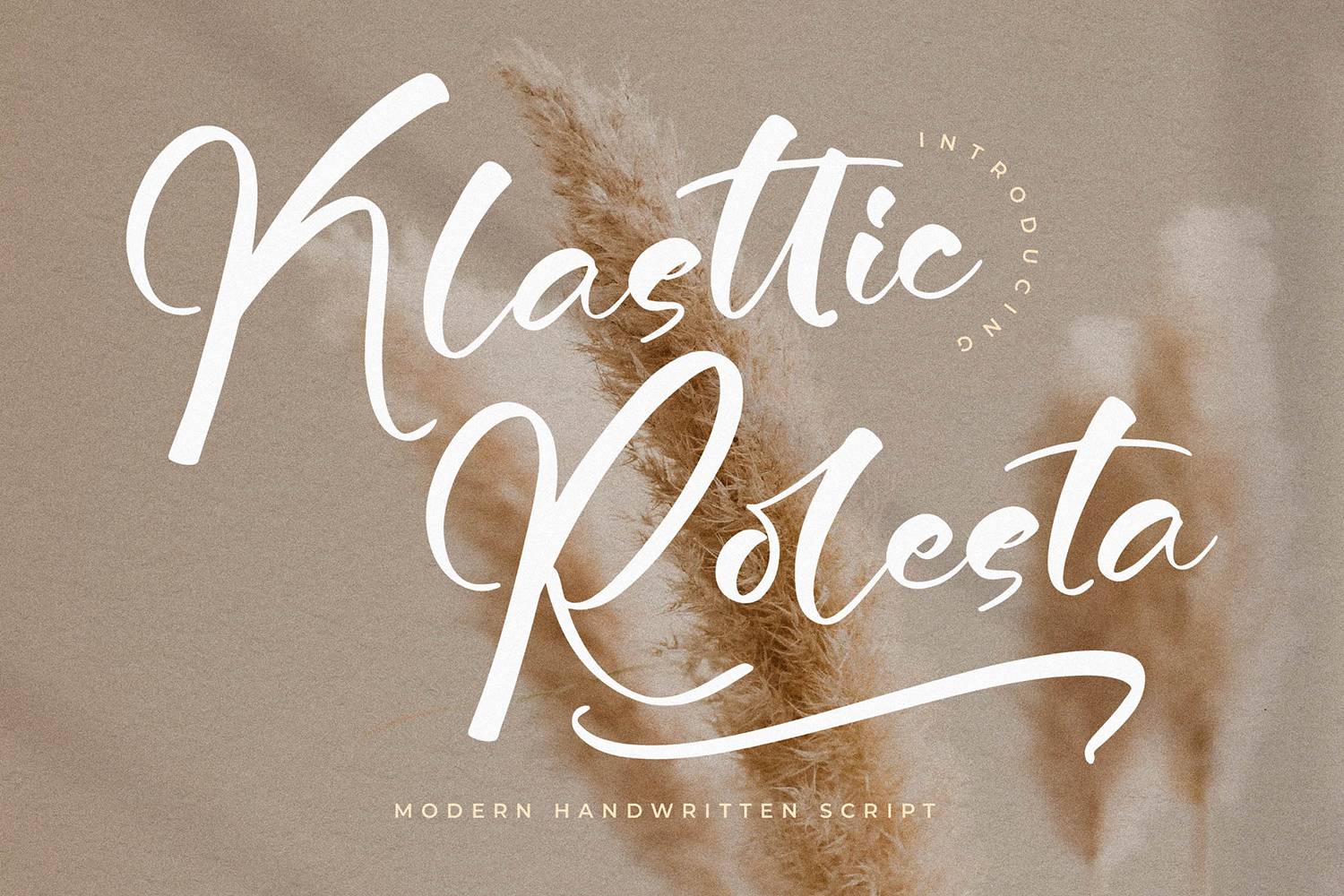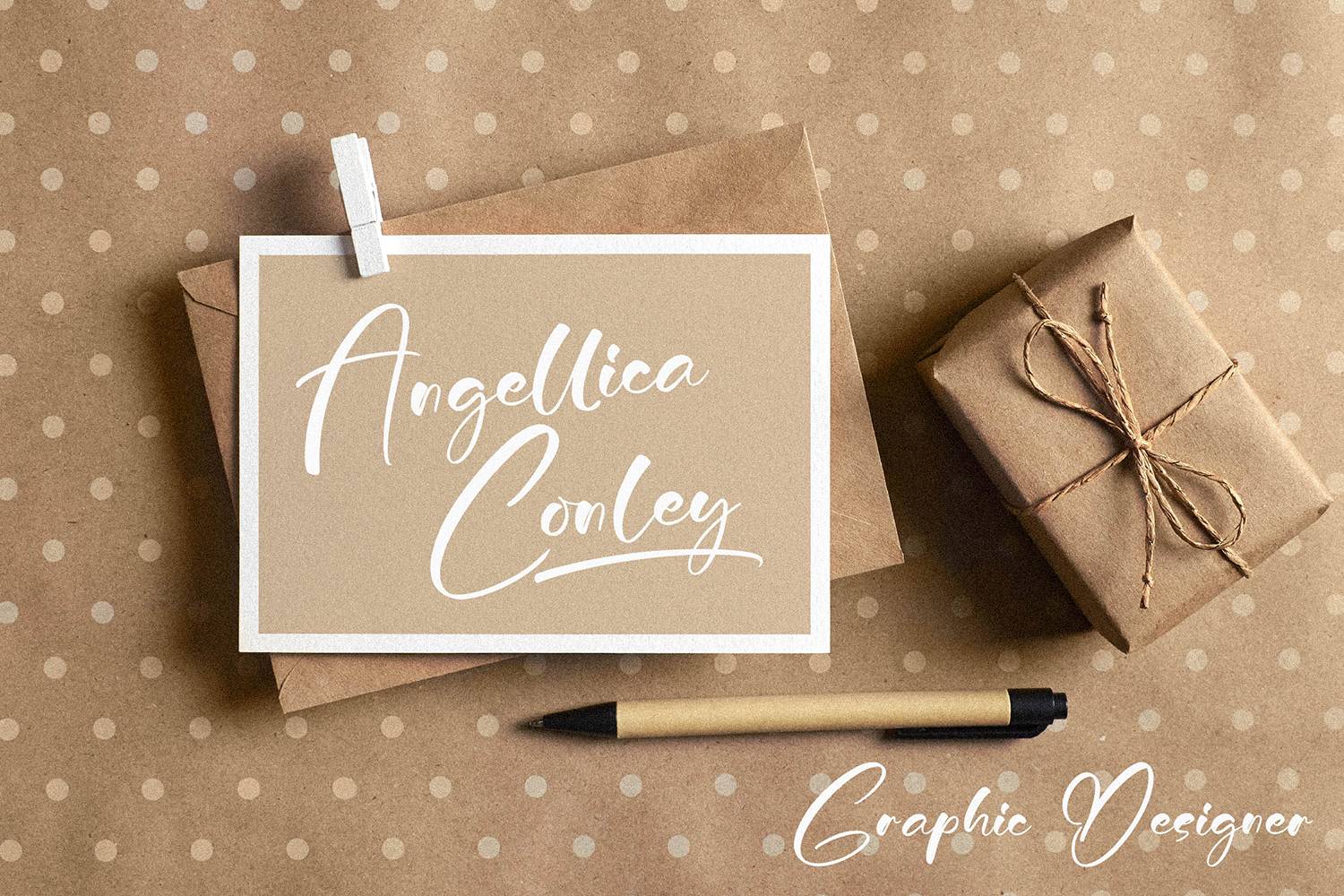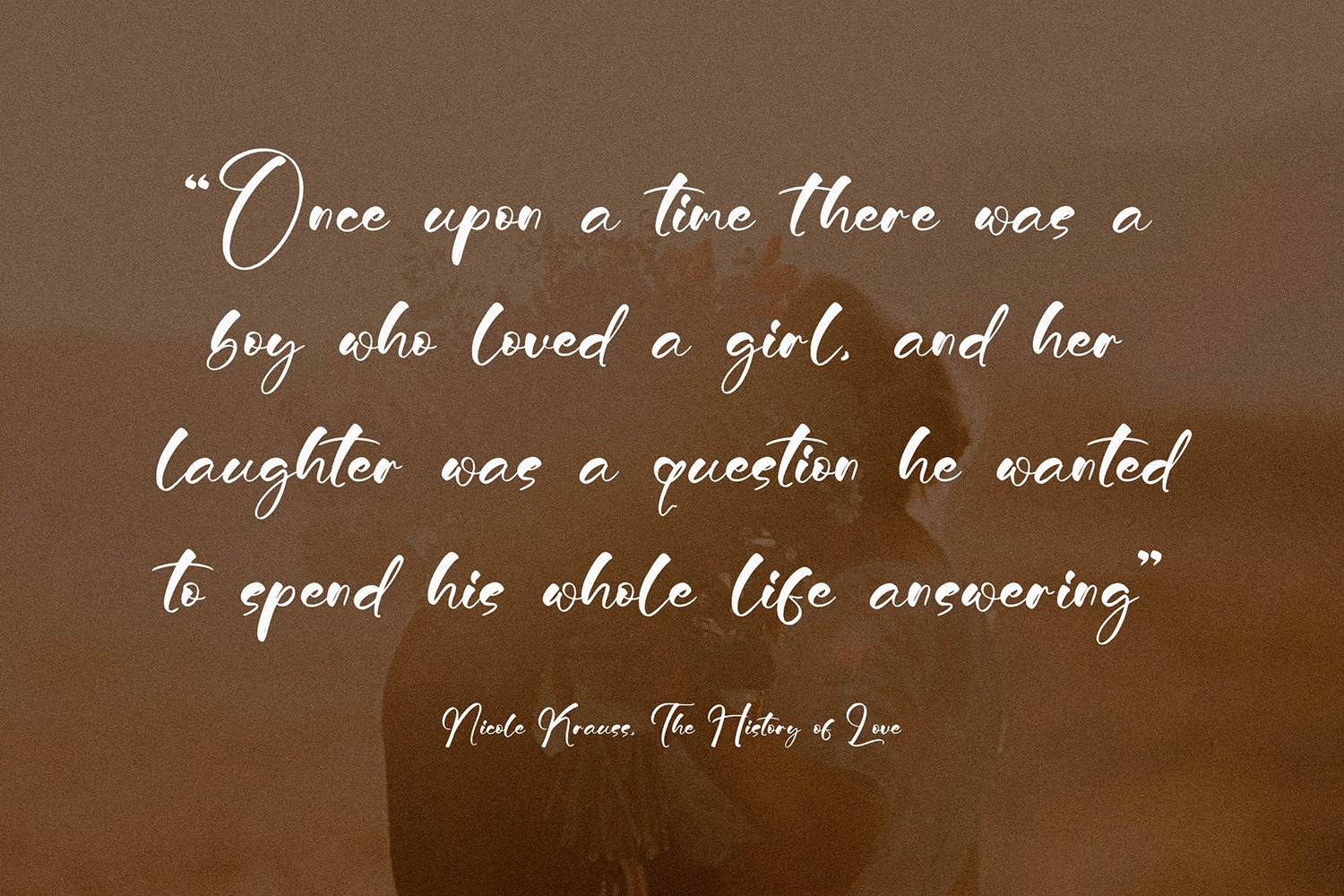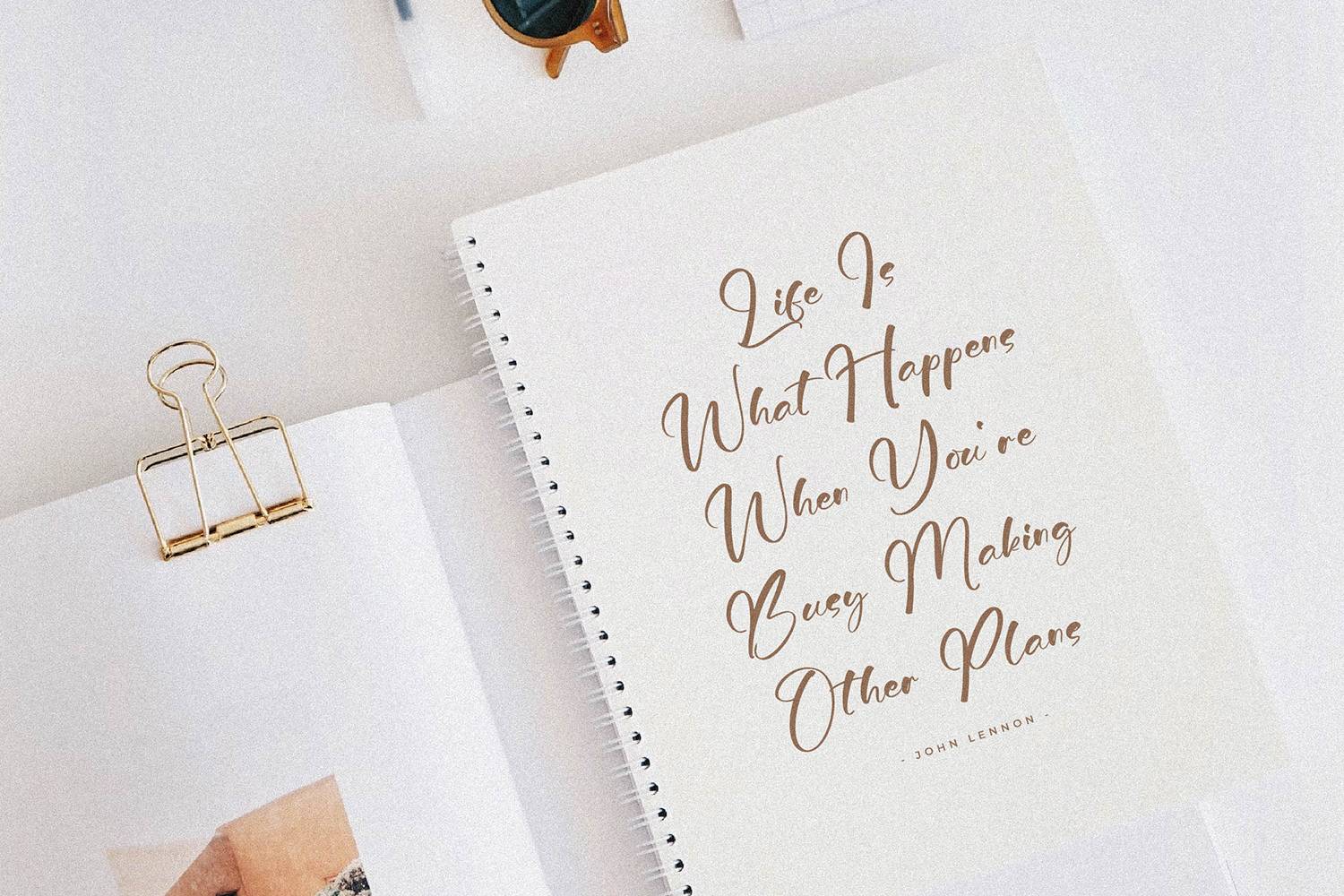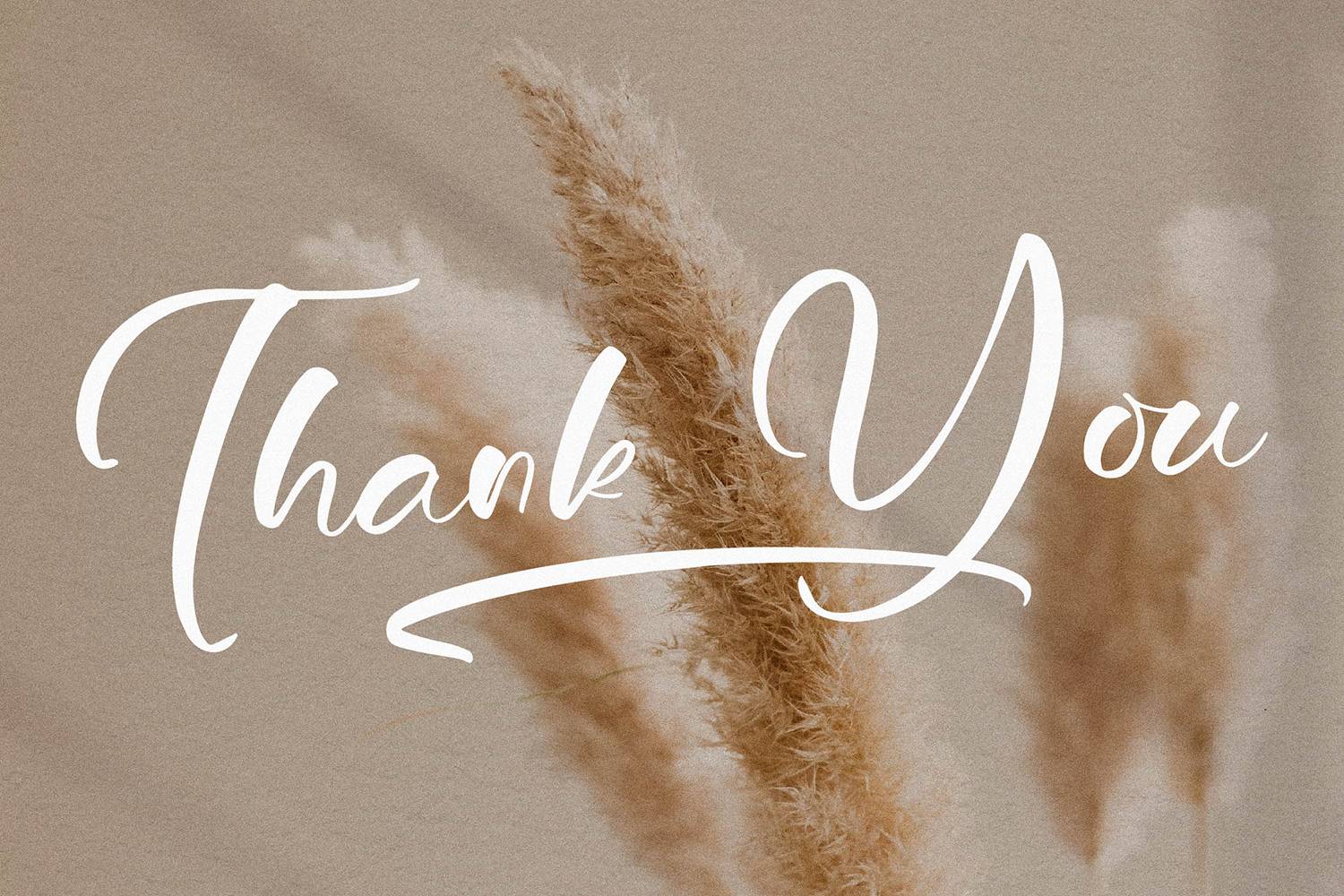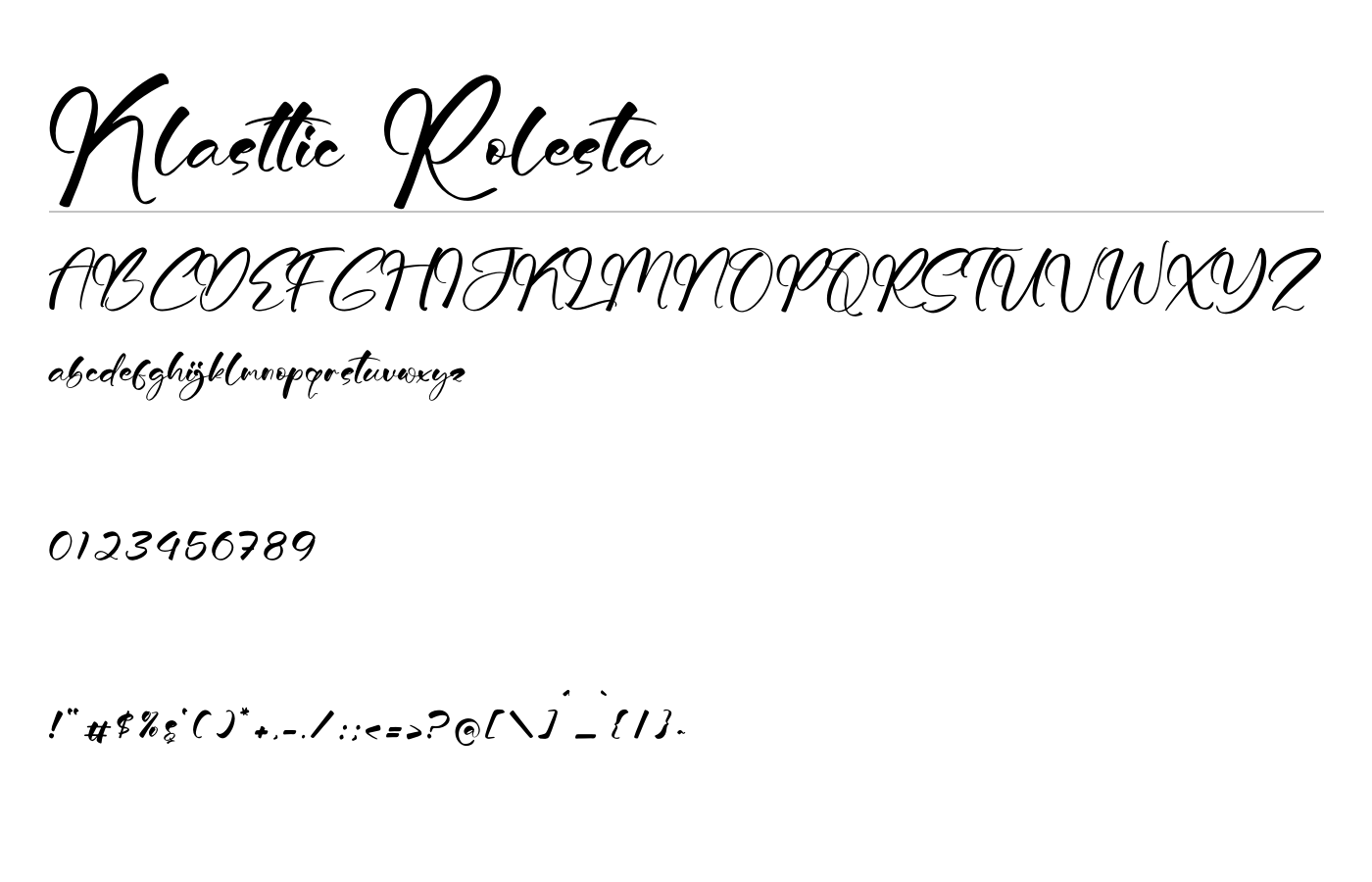
Klasttic Rolesta is an elegant script font characterized by its smooth, flowing strokes and medium contrast, giving it a refined yet approachable feel. With its handwritten style, it features stylish uppercase and lowercase letters that are perfect for adding a personal, artistic touch to branding, invitations, and creative projects. This font works best in designs that seek a sophisticated, yet expressive and modern personality.
Klasttic Rolesta Font
About Klasttic Rolesta Font